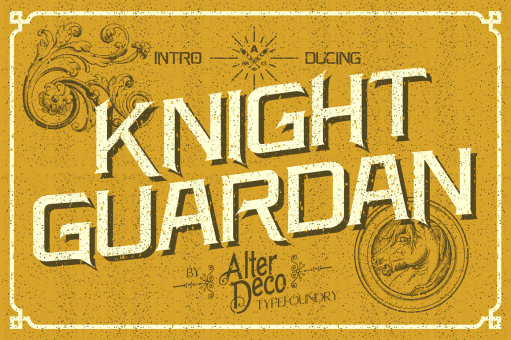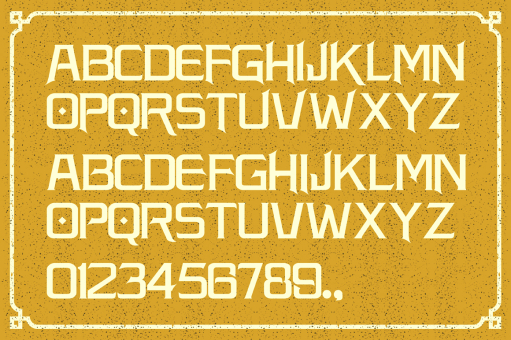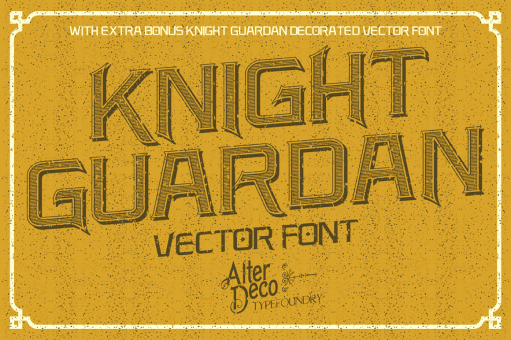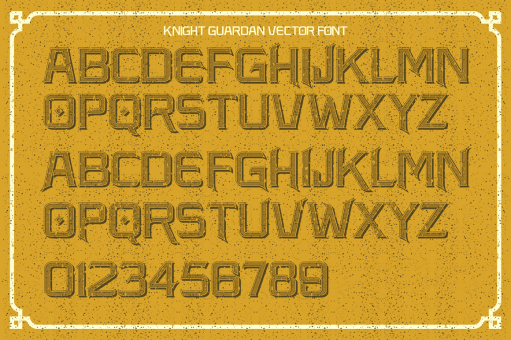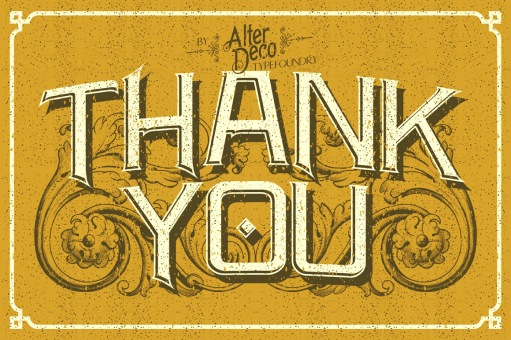
Knight Guardan typeface
Knight Guardan font is a retro style typeface, wich is great to create a logotype, headlines, or any other design works. This package also included the decorated version of the font, wich is inspired by old style wooden cut and engraved letters in a vector format (eps), you can play and combine the vector with the font it self. Please enjoy it and if you have any questions regarding this font, please contact me at alterdecofont@gmail.com